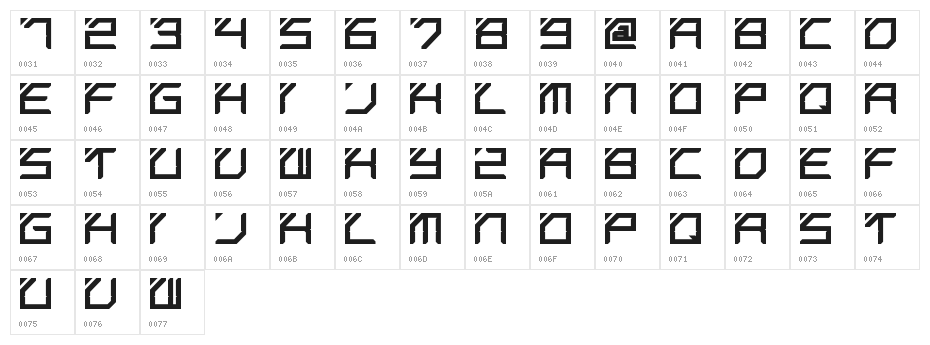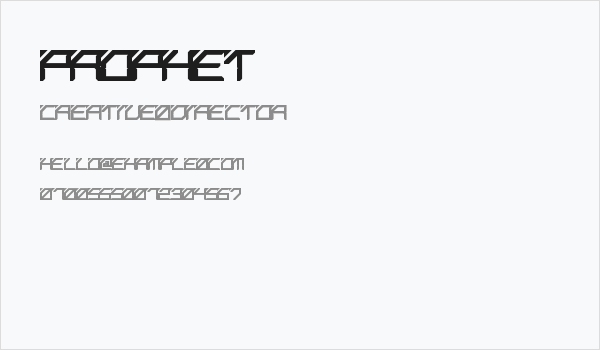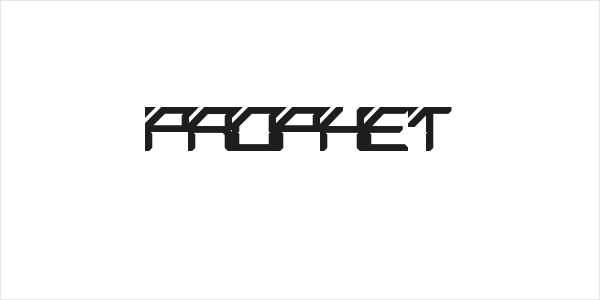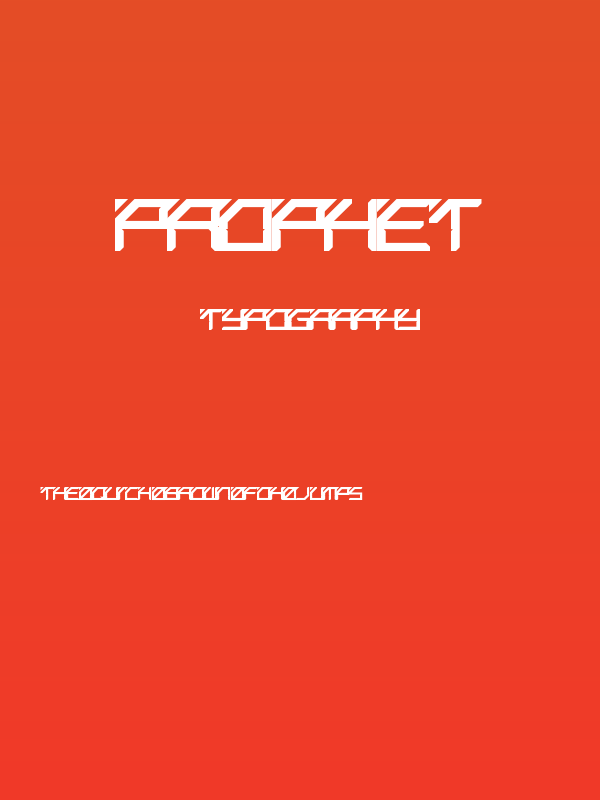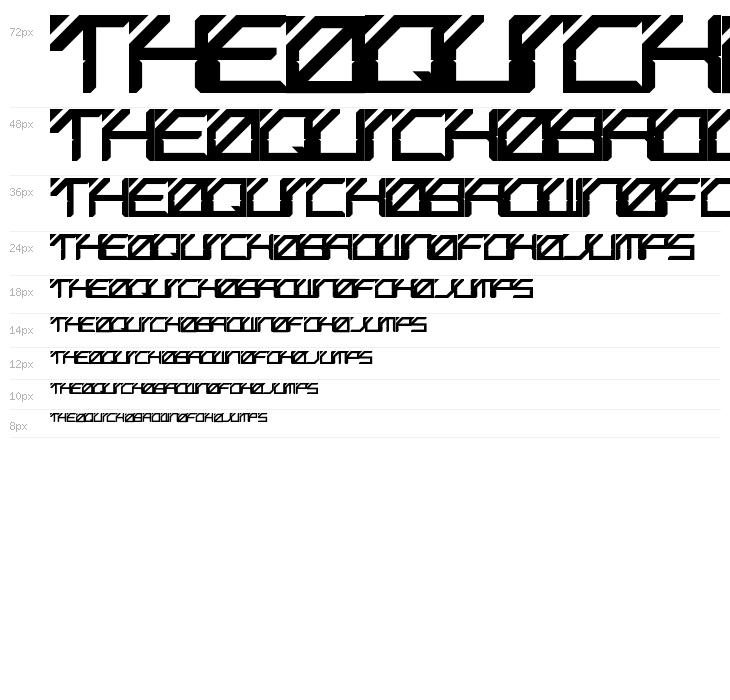
Prophet Font
Prophet Description
This font features a futuristic and angular design, characterized by sharp edges and geometric shapes. The letters are constructed with a bold, solid appearance, giving them a strong and impactful presence. The uppercase and lowercase letters maintain a consistent style, with a uniform height and width that contributes to a cohesive look. The numbers and special characters follow the same design principles, ensuring a harmonious overall appearance. The font's unique style makes it suitable for projects that require a modern and edgy aesthetic.